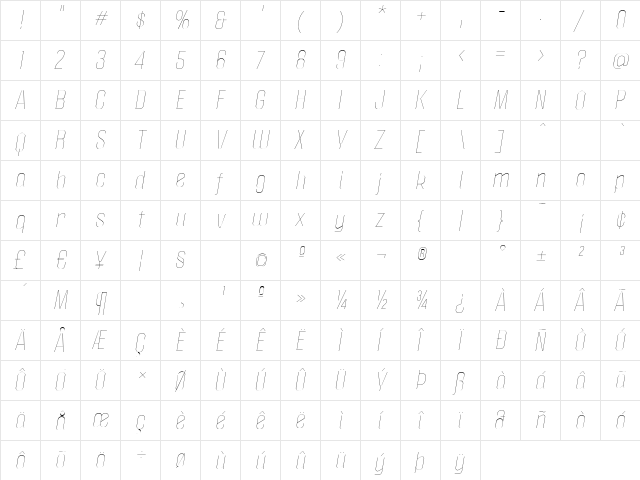
Politica Thin Italic
| Foundry | Alejandro Paul |
| Designer | Alejandro Paul & Alfredo Graziani |
Design Context for Politica Typeface
Politica is a composed and adaptable typeface that performs quietly and consistently across a wide range of design contexts. The dynamic lean of this cut emphasises speed and emphasis in any layout. The delicate stroke weight brings airiness and refinement to layouts.